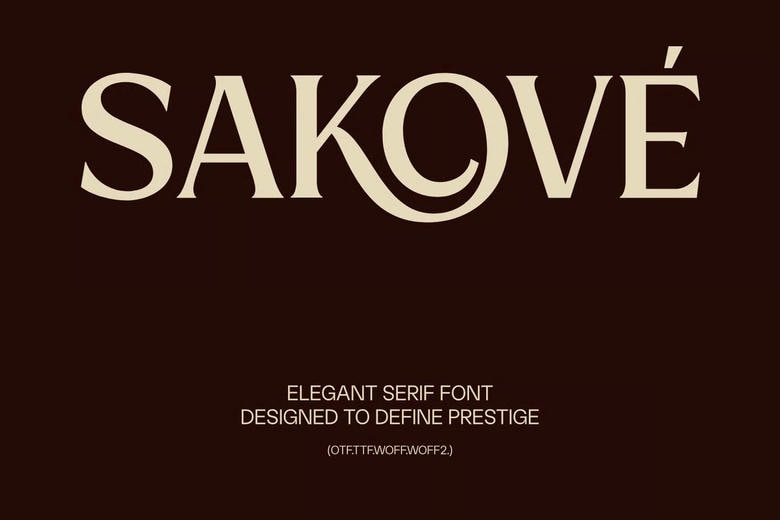
Sakove Font
Sakove is an elegant serif font that blends classic style with a modern, futuristic touch. Its clean, bold look works well for logos, luxury posters, movie titles, gaming interfaces, and digital campaigns.
Sakove is a versatile font, suitable for animation titles, cinematic visuals, social media posts, tech presentations, and futuristic branding. Its strong look helps your designs stand out.
Sakove Serif Font